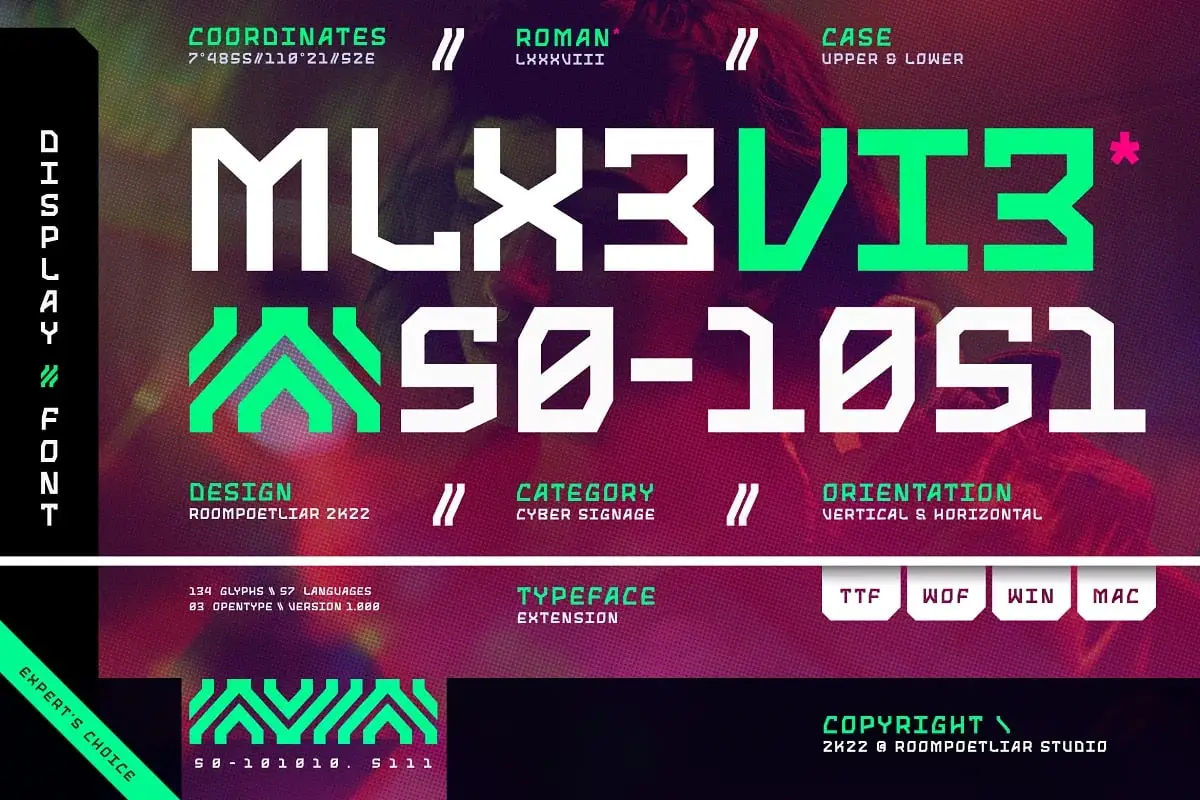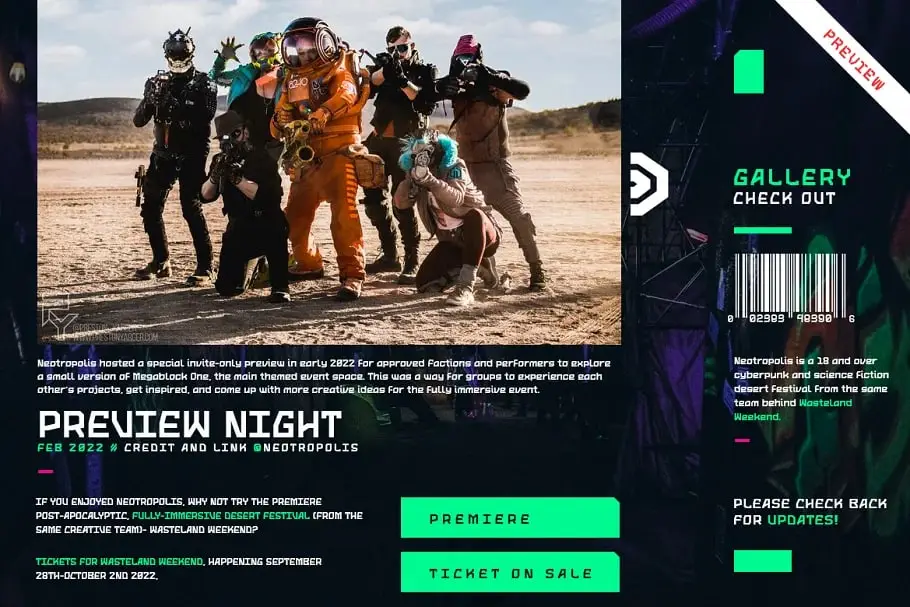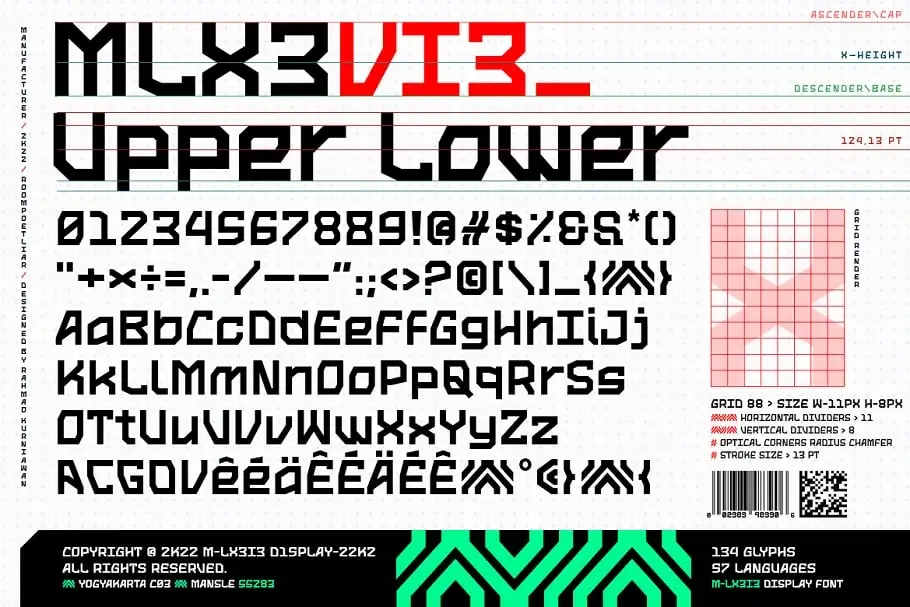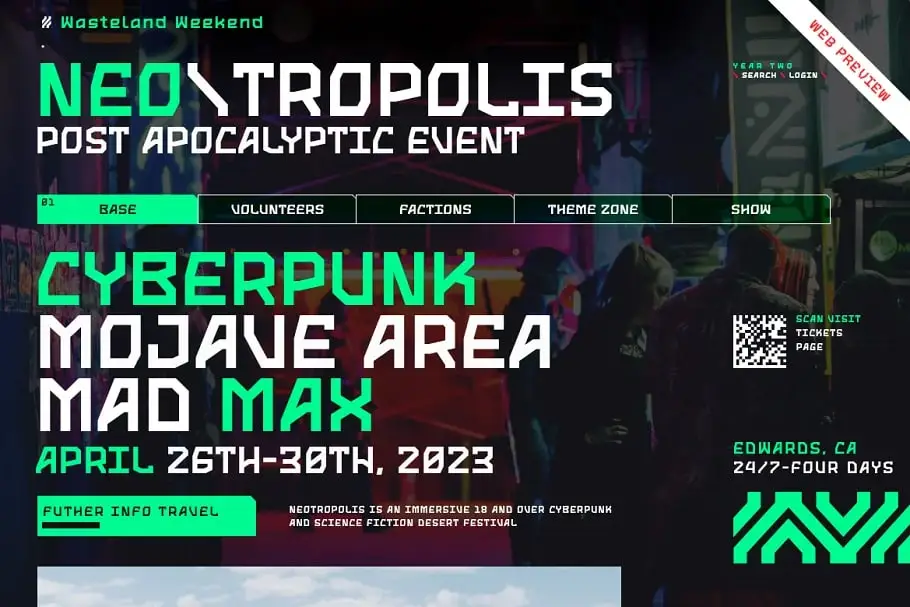
M-Lx3Vi3 Display Font By Rmpl.Std
The M-Lx3Vi3 Display Font by Rmpl.Std is a striking typeface designed to make a bold statement. With its unique character shapes and modern aesthetic, this font is perfect for a variety of applications including branding, logos, and eye-catching headlines.
• Distinctive display style
• Multiple weights available for versatility
• Uppercase and lowercase characters included
• Supports a wide range of languages
• Weight: Regular, Bold